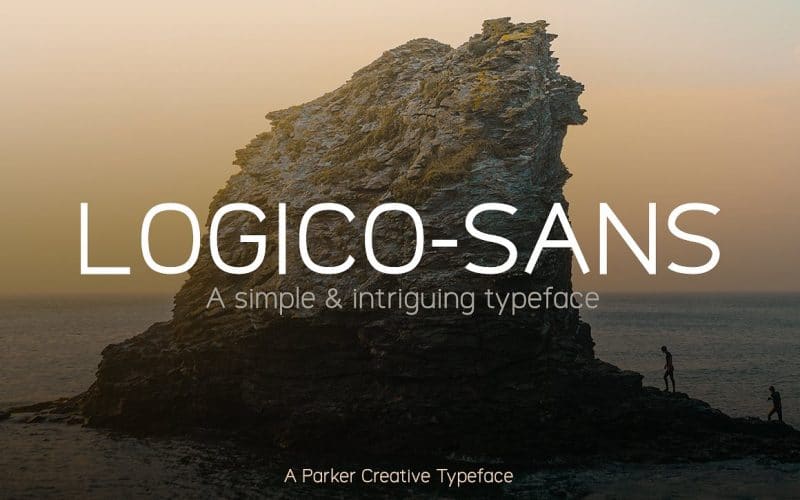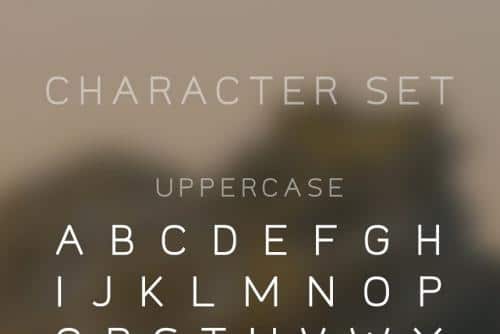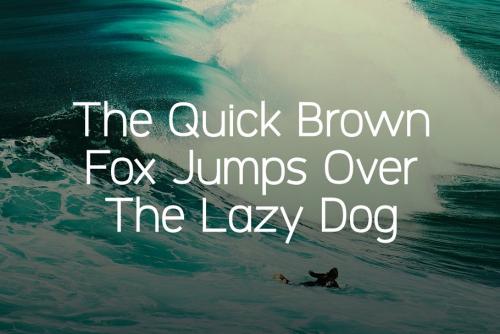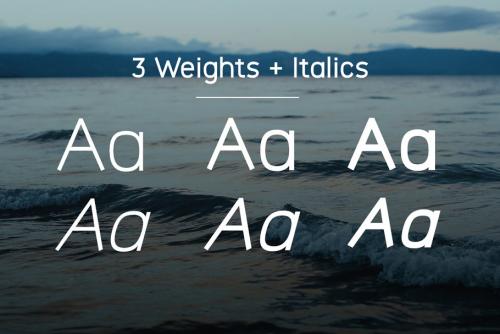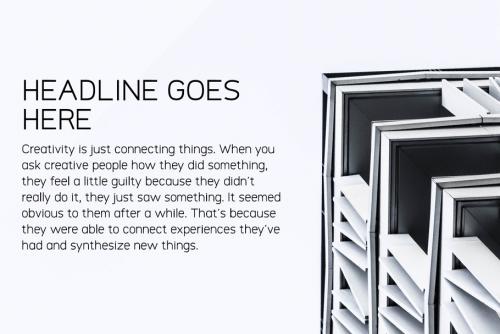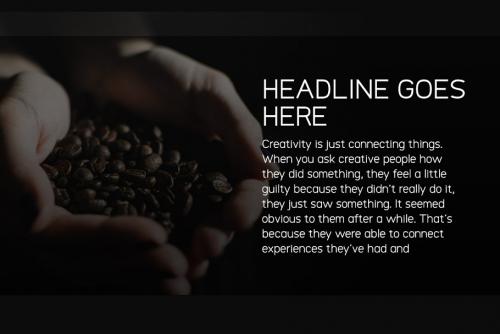
Introducing Logico-Sans, A simple & intriguing typeface. Logico Sans has a sleek and modern aesthetic, geared to read well at both large and small sizes.
WHAT’S INCLUDED Logico-Sans includes three weights (light, regular, bold), plus italics (TTF)!